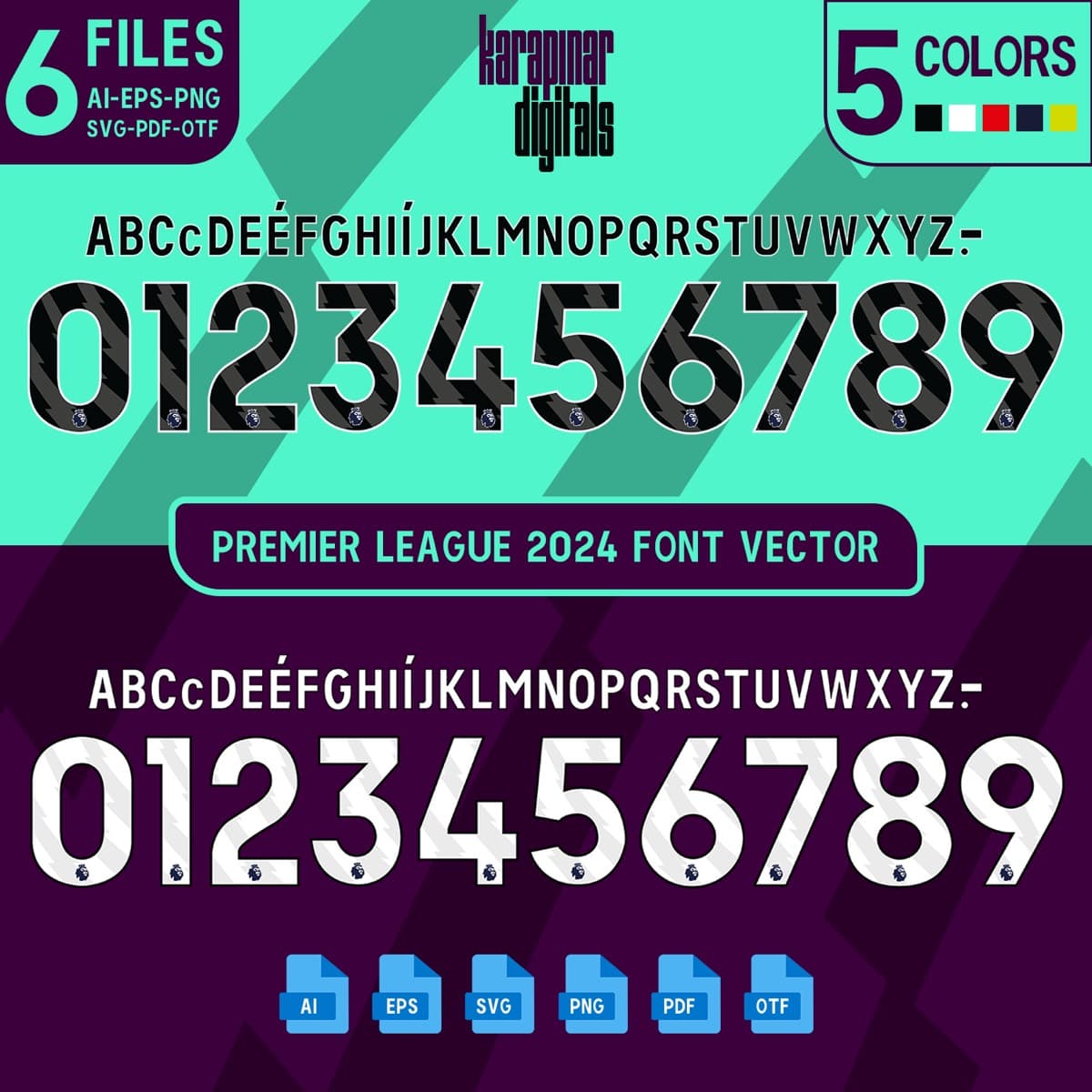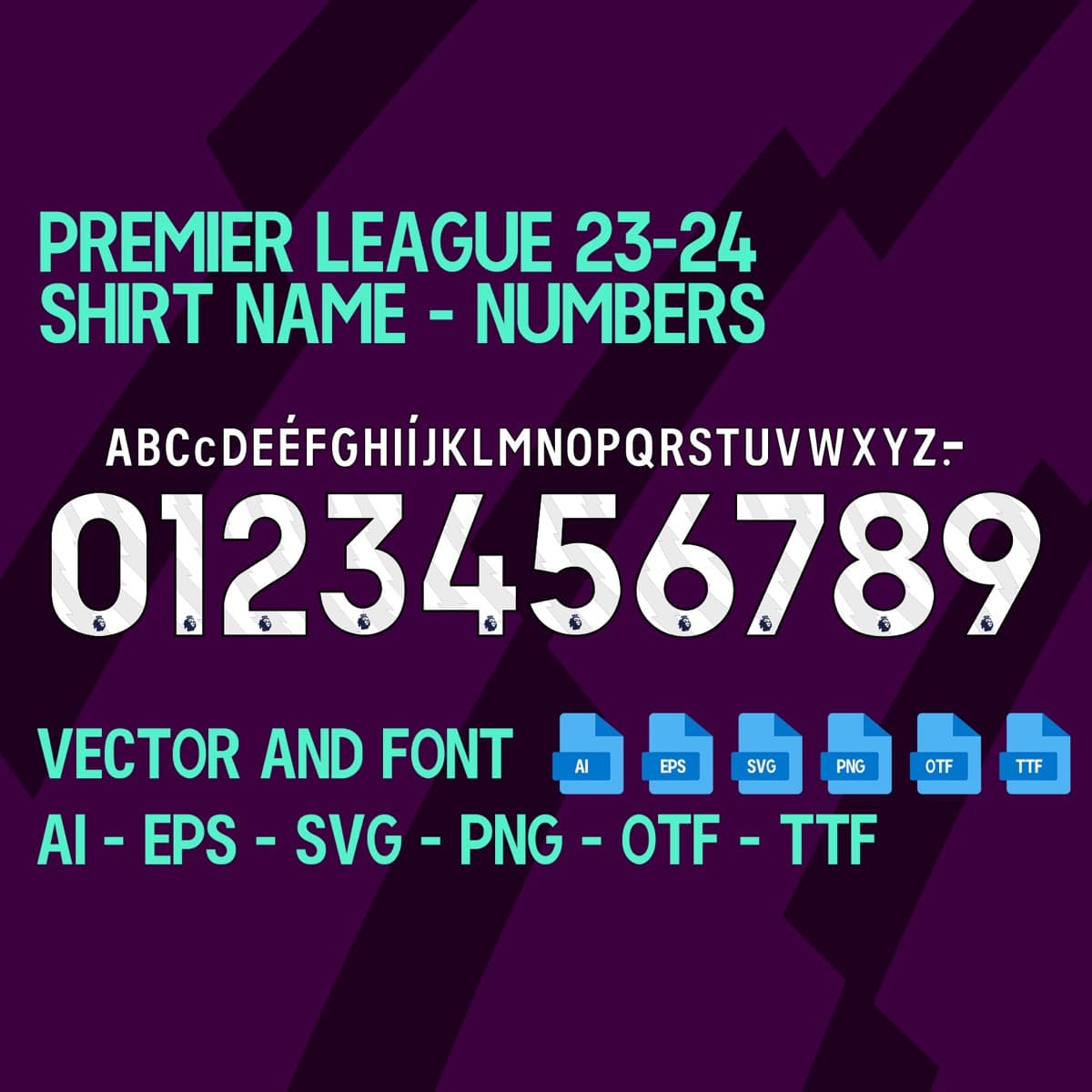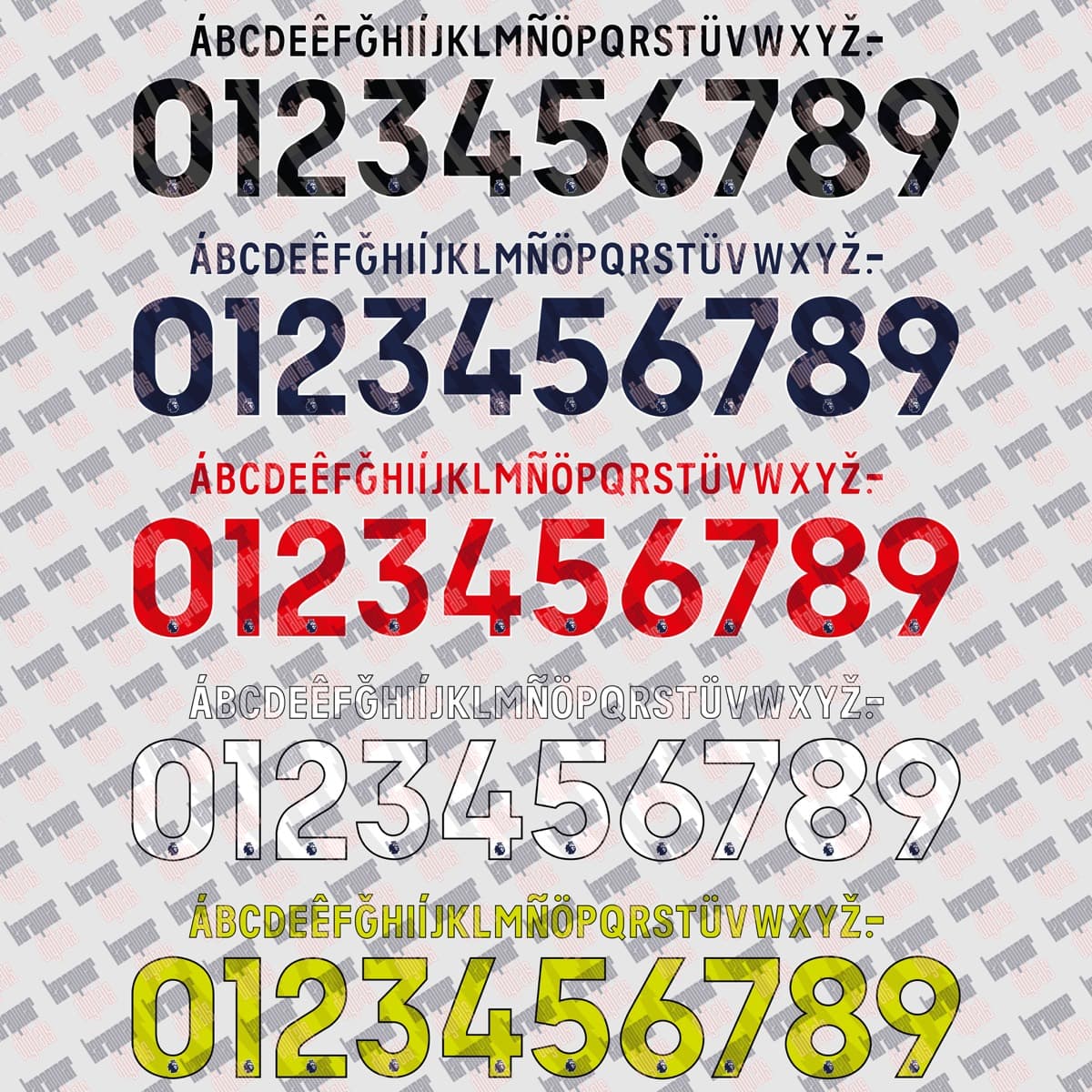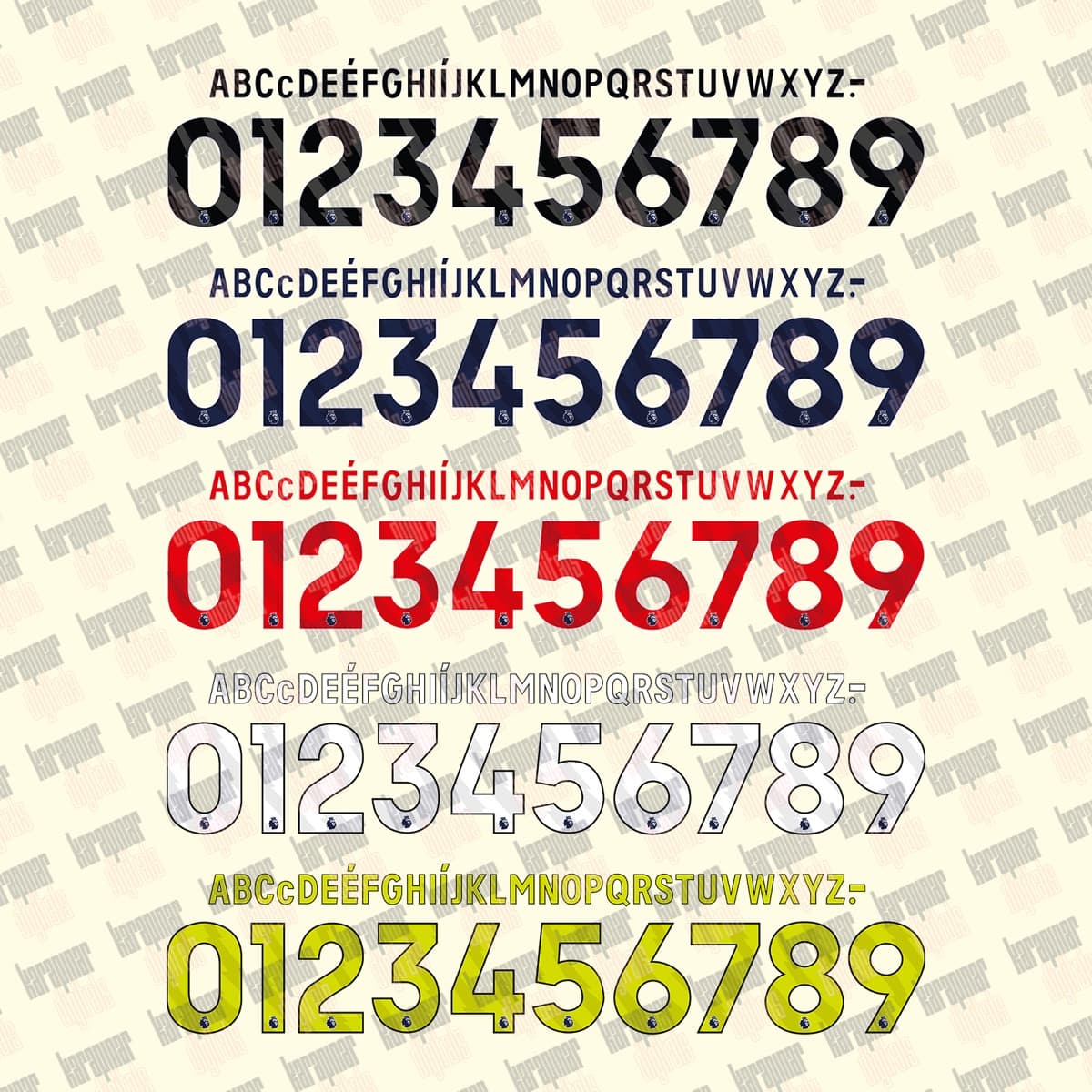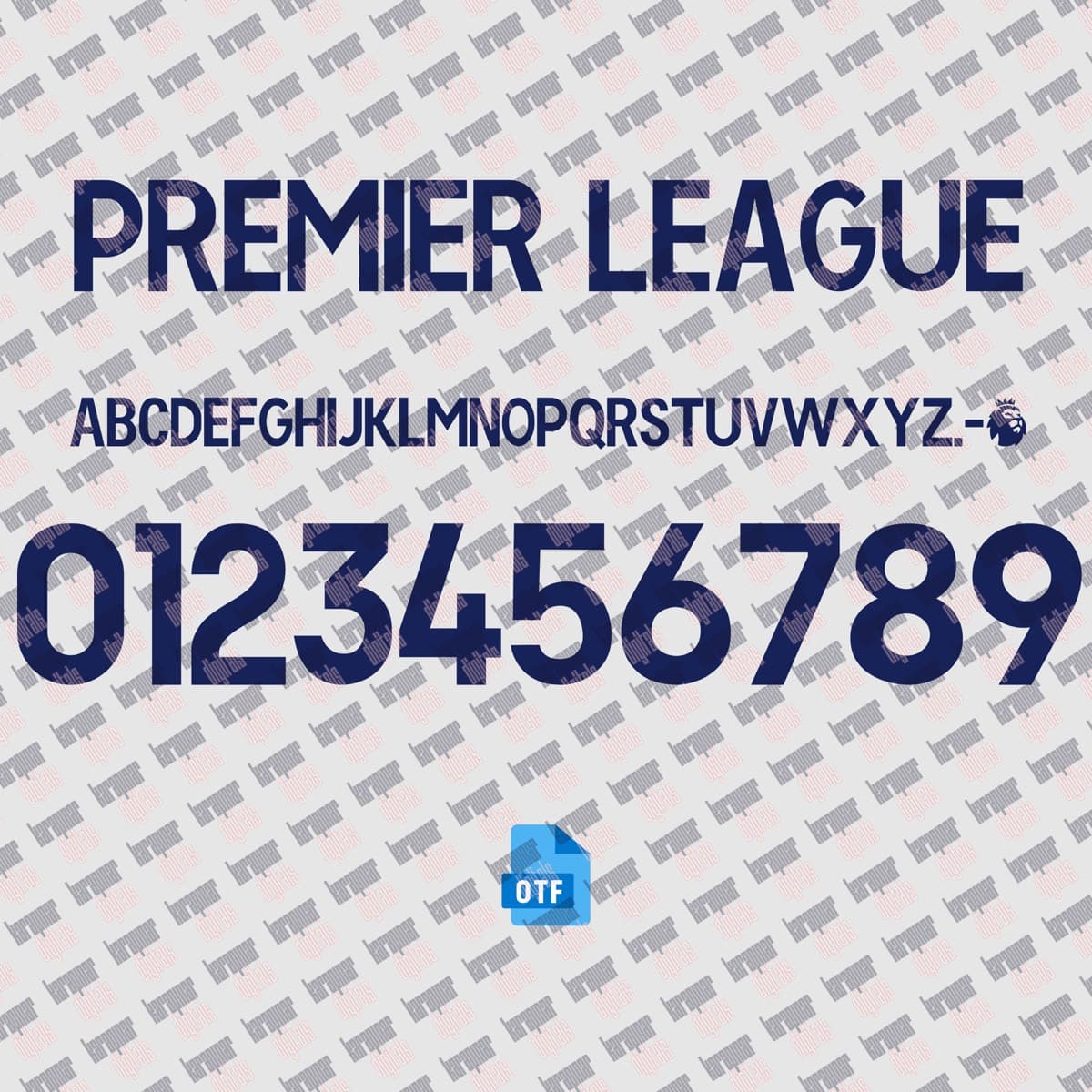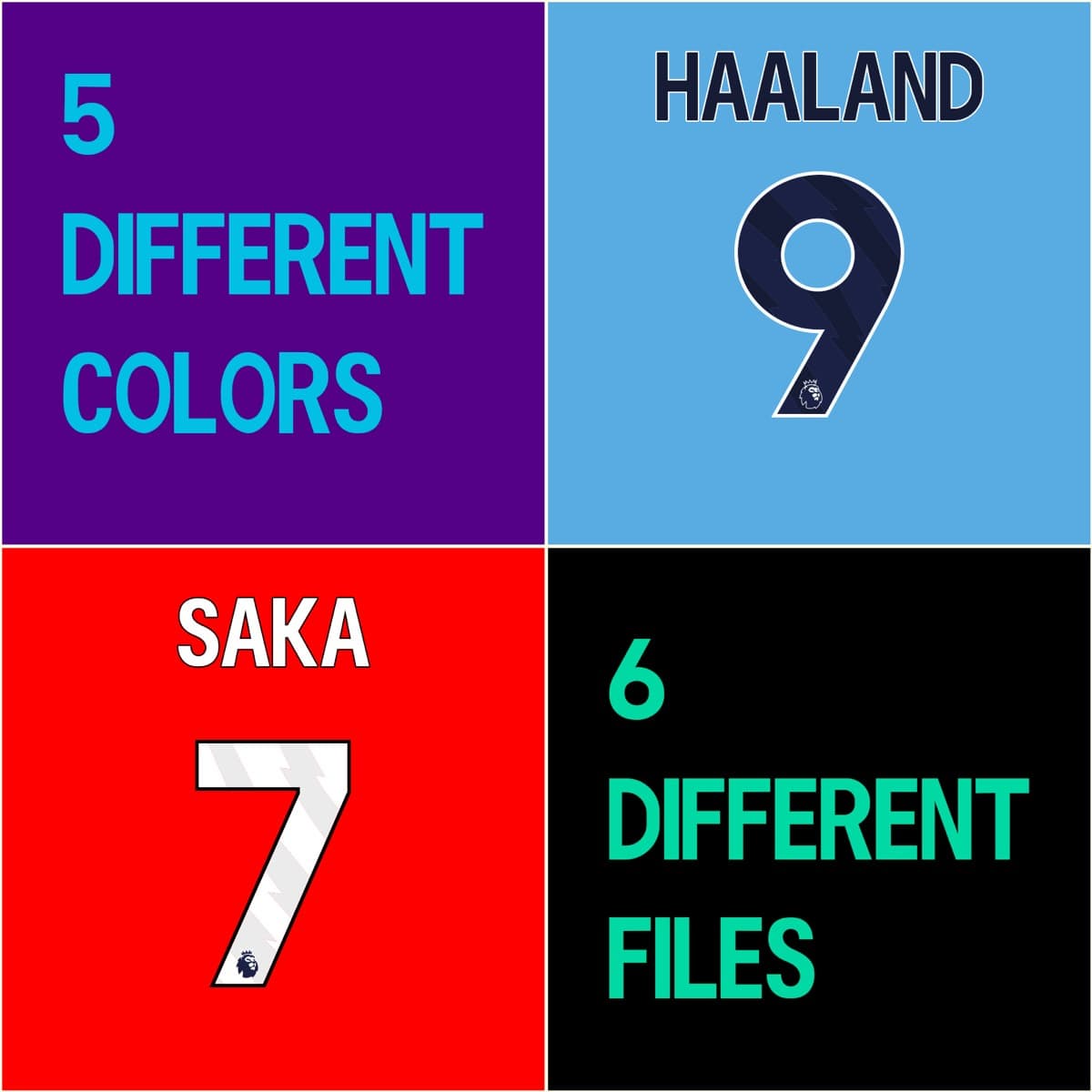
Premier League 2024
Premier League Set · 2024
Premier League 2024
A set inspired by the Premier League Set 2024 jersey typography, with a name and number system redrawn for print and screen. Original curves, consistent weight and a complete 0–9 numeral family.